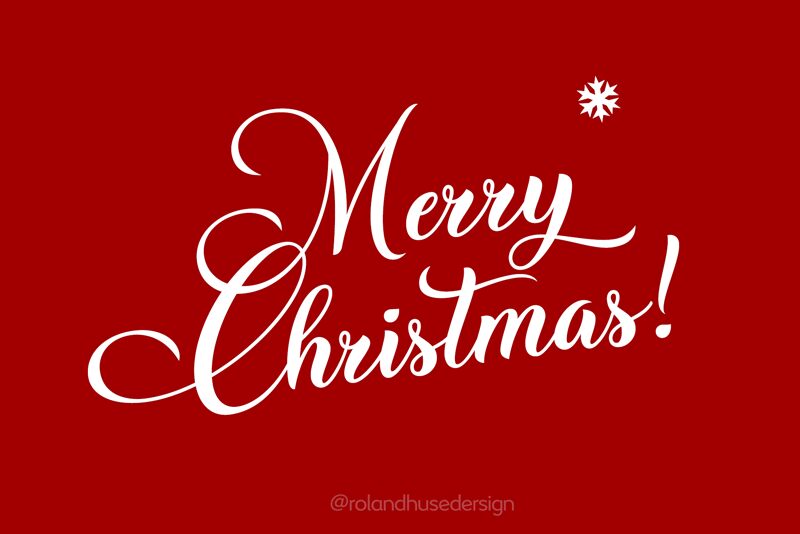
CHRISTMAS WISH is a cursive calligraphy style script that comes in two weights: a Monoline and a Calligraphic version.
Contains Western European accented characters and stylistic alternates for "s" and "h", standard ligatures for double letters ll tt. Please note that the font is primarily meant to type Christmas Greetings and words with, so all lowercase won't look good and swashes may overlap in some letter connections. I am working on the extension with extra swashes and ligatures and updates may follow soon.
Christmas Wish Calligraphy